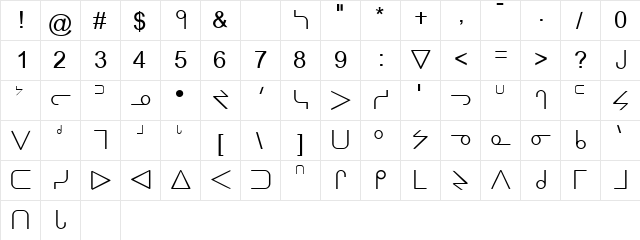
Cree Normal
Design Context for Cree Typeface
Cree takes a measured approach to typography — its balanced proportions and neutral character make it a reliable workhorse for both digital and print work.